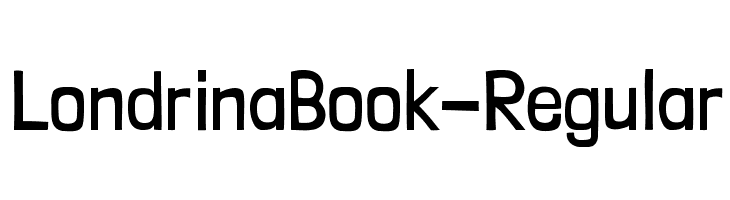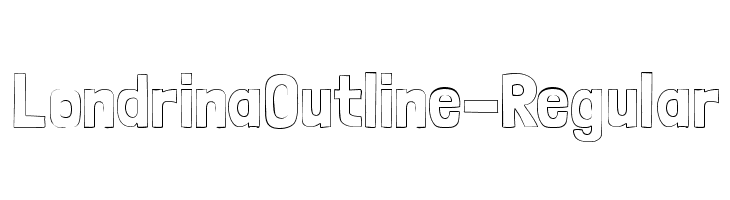
A playful, modern outline font with bold, hollow letterforms.
A playful, bold font with a unique shadow effect for a dynamic look.
A bold, playful font with a unique shadow effect and outlined characters.
A playful, hand-drawn font with sketch-like outlines and irregular strokes.
A playful, sketch-like font with hand-drawn, irregular outlines.
A bold, solid font with a modern and impactful style.
A bold, solid font with a strong, modern presence.
A clean, modern font with a geometric and solid design.
A bold, solid font with uniform strokes and rounded edges, ideal for impactful headlines.
A modern, geometric font with thin, elongated characters.